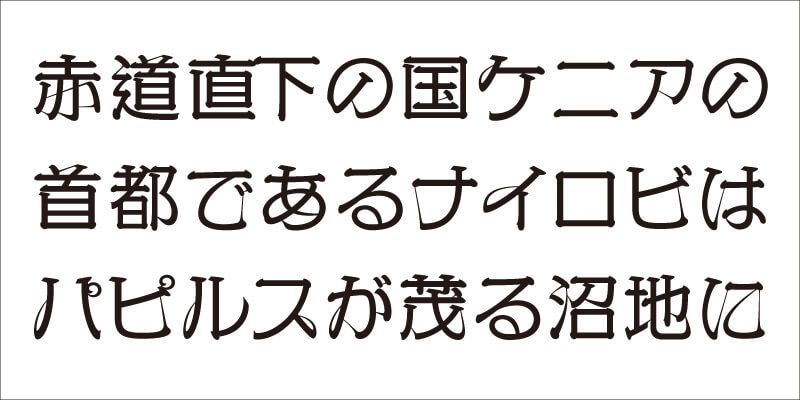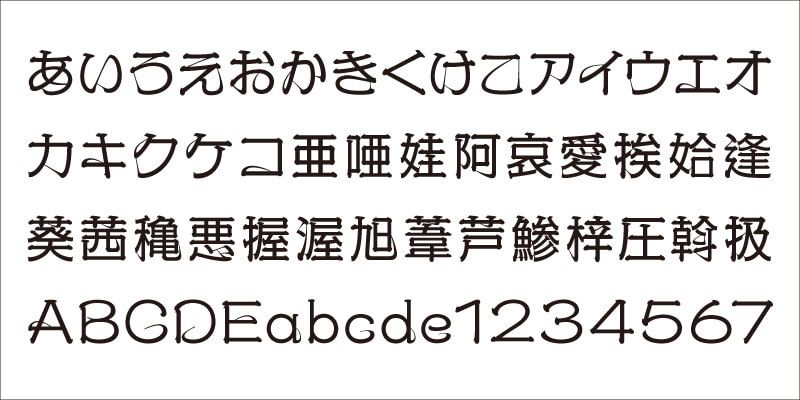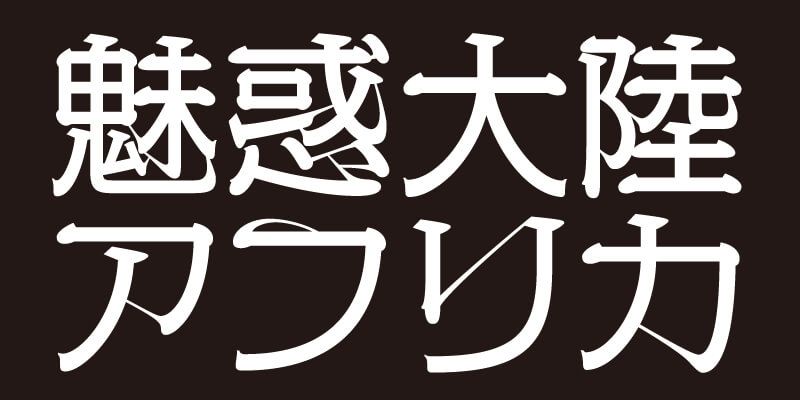
VDL-KyoSensya is an original typeface design based on the “Sensya Moji” or Edo-moji style of lettering used for Japanese traditional printed stickers found at shrines that imparts a sense of history. The typeface is characterized by lively accented curved “Harai” brush strokes. Another unique and innovative feature of this typeface are strokes precisely aligned to the horizontal line. This typeface family has six weights, each of which has a sophisticated flavor that is different from any traditional brush-script typefaces. VDL-KyoSensya was an award winning design at D&AD in 2011.